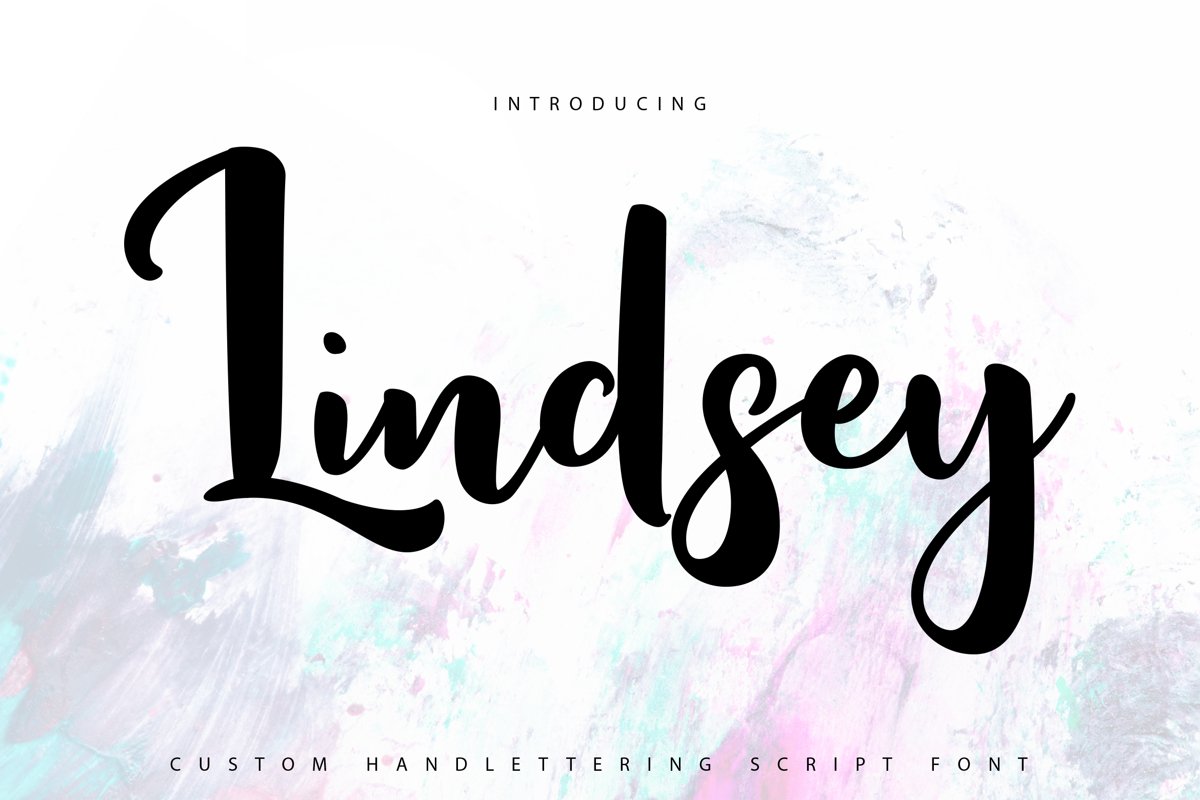
Lindsay | Custom Handlettering Script
Lindsey
**Lindsay | Custom Handlettering Script ** with a calligraphy style, So beautiful on invitation like greeting cards, branding materials, business cards, quotes, posters, and more!
* Tons of glyphs
* Alternates and Ligatures
* Punctional
* Fonts include **Multilingual Support**